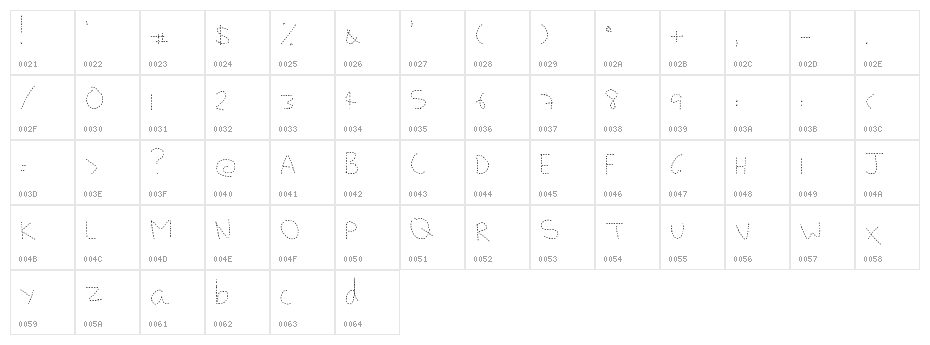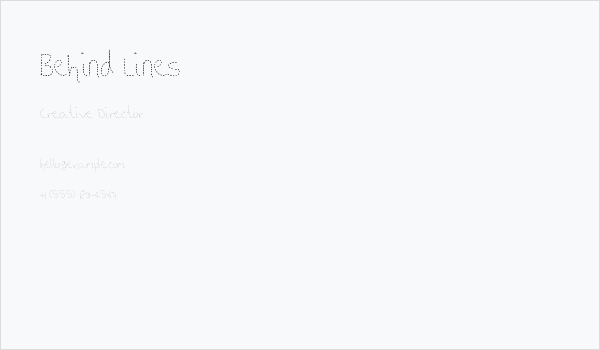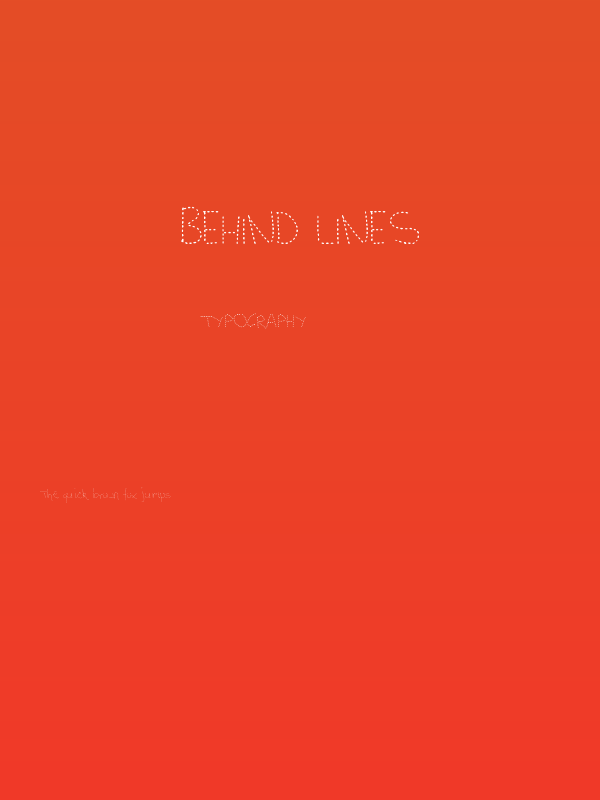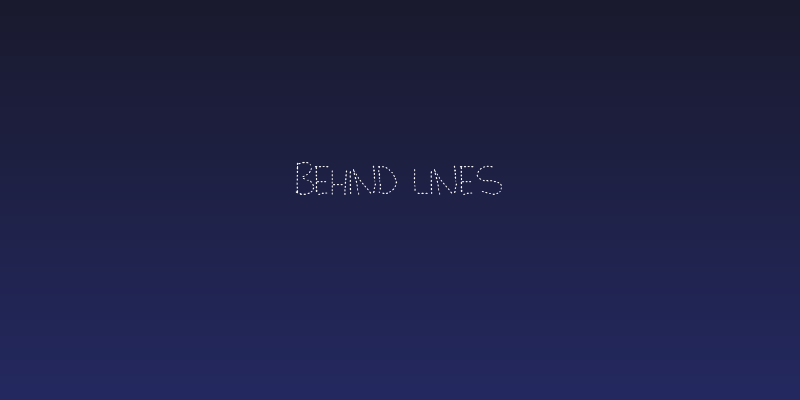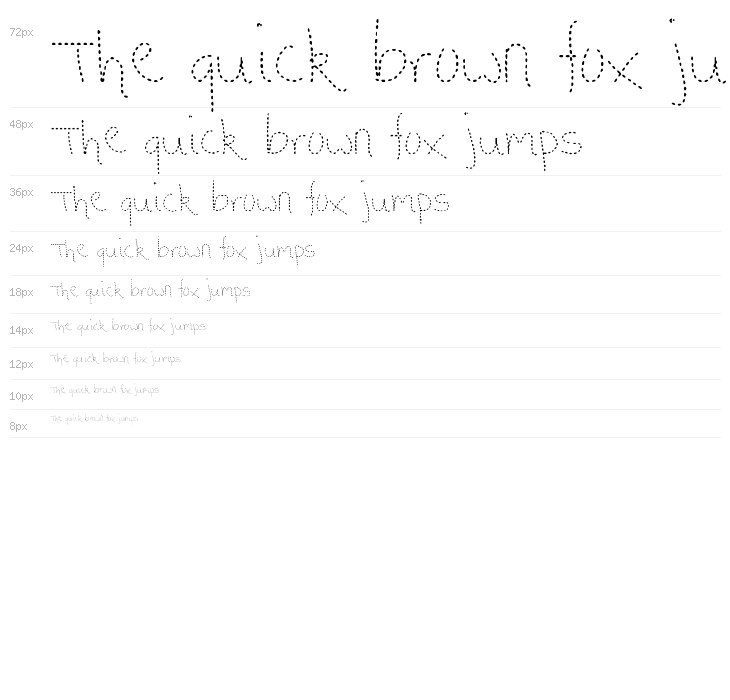
Behind Lines Font
| Stile generale | Playful, Informal |
| Caso d'uso | Headlines, Educational materials, Children's books |
| Progetti proposti | Perfect for educational materials, children's books, playful branding, and creative design projects. |